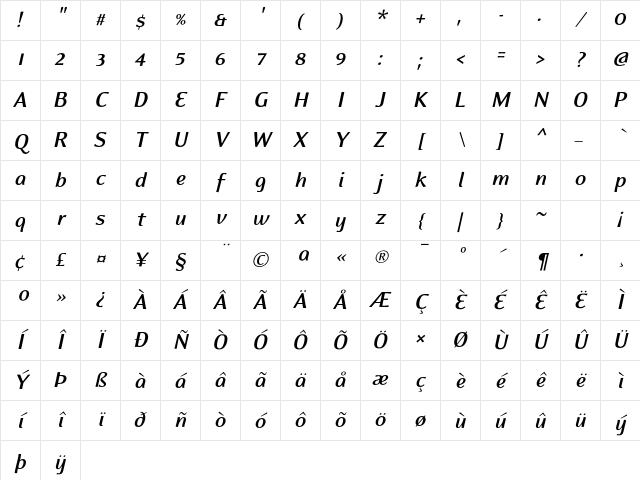
EideticModern Bold Italic
EideticModern Family
Design Context for EideticModern
EideticModern is a composed and adaptable typeface that performs quietly and consistently across a wide range of design contexts. The slanted form adds forward momentum and visual energy. Its bold stroke weight gives it real presence on the page.